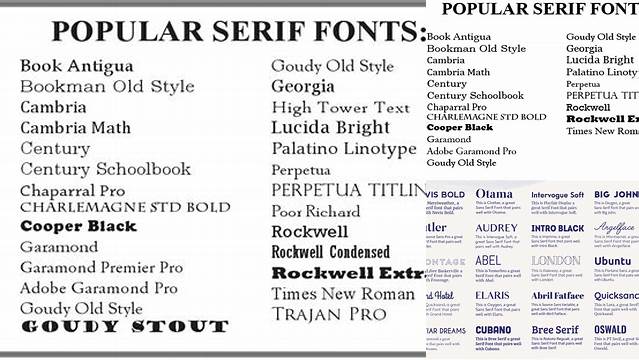
Best Serif Fonts In Microsoft Word: A Detailed Guide
Hey guys! Ever wondered which serif fonts in Microsoft Word can seriously up your document game? Let's dive into some of the most popular and effective serif fonts you can use to make your work stand out. Whether you're crafting a formal report, designing a professional resume, or just aiming for a touch of elegance in your everyday writing, picking the right font is super important. So, let’s get started and explore these awesome options together!
Times New Roman: The Classic Choice
Times New Roman is often seen as the quintessential serif font, and there’s a good reason for that. This font is incredibly versatile and has been a standard in publishing and academia for decades. Its clarity and readability make it an excellent choice for large blocks of text, ensuring that your readers can easily follow along without straining their eyes. Think about it: when you're dealing with lengthy reports or research papers, the last thing you want is a font that's hard to read. Times New Roman solves this problem beautifully.
One of the key strengths of Times New Roman is its neutrality. It doesn’t scream for attention, allowing your content to take center stage. This makes it perfect for formal documents where professionalism and clarity are paramount. Plus, its widespread availability means you can be confident that your document will look the same on virtually any computer, avoiding those awkward formatting issues when you share files with others. Whether you're submitting an assignment, sending out an official letter, or preparing a legal document, Times New Roman is a reliable choice that conveys seriousness and attention to detail. It’s a font that says, "I mean business," without being overly flashy or distracting. So, if you’re aiming for a classic, no-nonsense look, Times New Roman is definitely a font you can trust.
Garamond: Elegance and Readability
If you're looking to add a touch of elegance to your documents, Garamond is an excellent serif font choice. Known for its refined and graceful appearance, Garamond brings a level of sophistication that few other fonts can match. This font is particularly well-suited for projects where aesthetics are just as important as readability, such as book printing, invitations, and high-end marketing materials. Imagine crafting a beautiful wedding invitation or designing a brochure for a luxury brand; Garamond can elevate the overall look and feel, making it more appealing and polished.
What sets Garamond apart is its delicate serifs and balanced letterforms, which create a harmonious and pleasing visual experience. It’s a font that feels both classic and contemporary, making it versatile enough for a wide range of applications. While it exudes elegance, Garamond doesn’t compromise on readability. Its well-designed characters ensure that text remains clear and legible, even in smaller sizes. This makes it a practical choice for both body text and headings. Whether you're writing a novel, creating a stylish report, or designing a sophisticated presentation, Garamond can help you achieve a professional and visually appealing result. It’s a font that whispers sophistication, adding a touch of class to any project without being ostentatious. So, if you want to impress your audience with a blend of beauty and clarity, Garamond is definitely worth considering.
Georgia: Perfect for Screen Reading
Georgia is a serif font specifically designed for enhanced readability on screens, making it an ideal choice for digital documents and online content. Its clear and sturdy letterforms ensure that text remains legible even at smaller sizes and on lower-resolution displays. This is particularly important in today's digital age, where we spend countless hours reading on computers, tablets, and smartphones. Georgia's design addresses the challenges of screen reading, reducing eye strain and improving overall reading comfort.
One of the key features of Georgia is its generous x-height, which refers to the height of the lowercase letters relative to the uppercase letters. This makes the lowercase letters appear larger and more distinct, enhancing readability. Additionally, Georgia's serifs are slightly thicker than those of other serif fonts, providing better definition and preventing the letters from blurring together on screen. This makes it an excellent choice for websites, blog posts, and e-books. Furthermore, Georgia works well in Microsoft Word for documents that will primarily be read on a screen, such as reports, proposals, and presentations. Its clear and legible design ensures that your message is effectively communicated, regardless of the viewing device. So, if you're prioritizing readability in a digital environment, Georgia is a font that you can rely on to deliver a comfortable and efficient reading experience.
Cambria: A Modern Serif
Cambria is a modern serif font designed to perform exceptionally well in on-screen reading environments, particularly within the Microsoft Office suite. Its carefully crafted letterforms and balanced proportions make it a versatile choice for a wide range of documents, from academic papers to business reports. Cambria stands out due to its ability to maintain clarity and legibility even at smaller sizes, which is crucial when dealing with digital text.
What makes Cambria particularly effective is its robust design, which includes subtle yet distinct serifs that enhance readability without appearing overly ornate. This font was specifically created to address the challenges of rendering text on screens, ensuring that each character remains crisp and clear. It’s an excellent option for anyone who spends a significant amount of time working with digital documents. In Microsoft Word, Cambria offers a contemporary alternative to more traditional serif fonts like Times New Roman. Its clean and modern appearance lends a professional touch to any project, whether you're writing a research paper, composing an email, or creating a presentation. Moreover, Cambria's compatibility across different platforms and devices ensures that your documents will look consistent, regardless of where they are viewed. If you're seeking a font that combines modern aesthetics with excellent on-screen readability, Cambria is definitely a strong contender. It’s a reliable and versatile choice that can elevate the visual appeal of your digital documents while ensuring a comfortable reading experience for your audience.
Book Antiqua: A Touch of Warmth
If you're aiming for a font that combines classic elegance with a touch of warmth, Book Antiqua is an excellent serif option to consider. Its design is inspired by classical book typography, giving it a timeless and inviting feel. This font is particularly well-suited for projects where you want to create a sense of tradition and sophistication, such as literary works, historical documents, or special event invitations. Book Antiqua’s gentle curves and balanced letterforms make it a pleasure to read, adding a human touch to your text.
Choosing the Right Font
Selecting the right serif font in Microsoft Word can significantly impact the overall look and feel of your documents. Whether you opt for the classic Times New Roman, the elegant Garamond, the screen-friendly Georgia, the modern Cambria, or the warm Book Antiqua, each font brings its unique character to your work. Consider the purpose and audience of your document when making your choice. A formal report might benefit from the professionalism of Times New Roman, while a creative project could shine with the elegance of Garamond. For on-screen reading, Georgia and Cambria are excellent choices, ensuring clarity and reducing eye strain. And if you want to add a touch of warmth and tradition, Book Antiqua is a great option. Experiment with different fonts to see which one best suits your needs and helps you achieve the desired effect. Remember, the right font can enhance readability, convey the right tone, and ultimately make your message more impactful. So, take the time to explore your options and choose wisely!